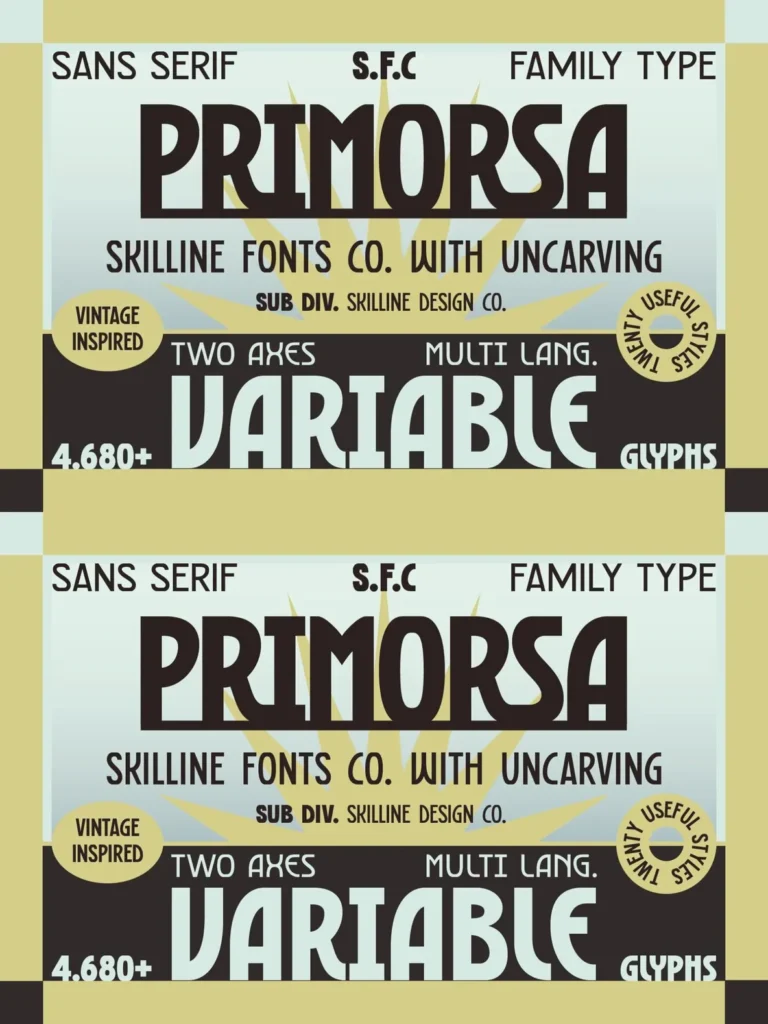
SFC Primorsa: A Versatile Sans Serif with Vintage Character
SFC Primorsa is a modern sans serif variable font family, blending confidence with vintage-inspired details. Its design balances clean geometry and smooth curves with strong letterforms, ensuring impactful visual communication across diverse applications.
The family offers five widths—Condensed, Narrow, Normal, Wide, and Expanded—and four weights, resulting in 20 distinct styles. This range provides flexibility for cohesive branding and adaptable layouts in print and digital media. SFC Primorsa performs well in logos, editorial layouts, posters, packaging, signage, and apparel, maintaining clarity and a distinctive personality.
Comprehensive sans serif typeface family
Two variable axes enhancing design flexibility
High legibility suited for various media